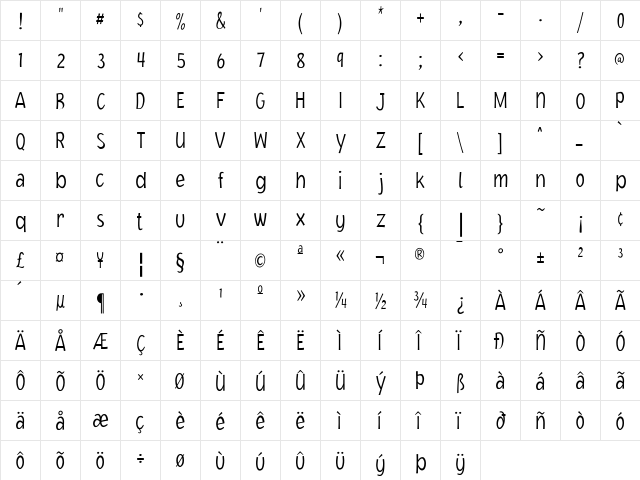
Jacoby Medium
Design Context for Jacoby Typeface
Jacoby is a composed and adaptable typeface that performs quietly and consistently across a wide range of design contexts.